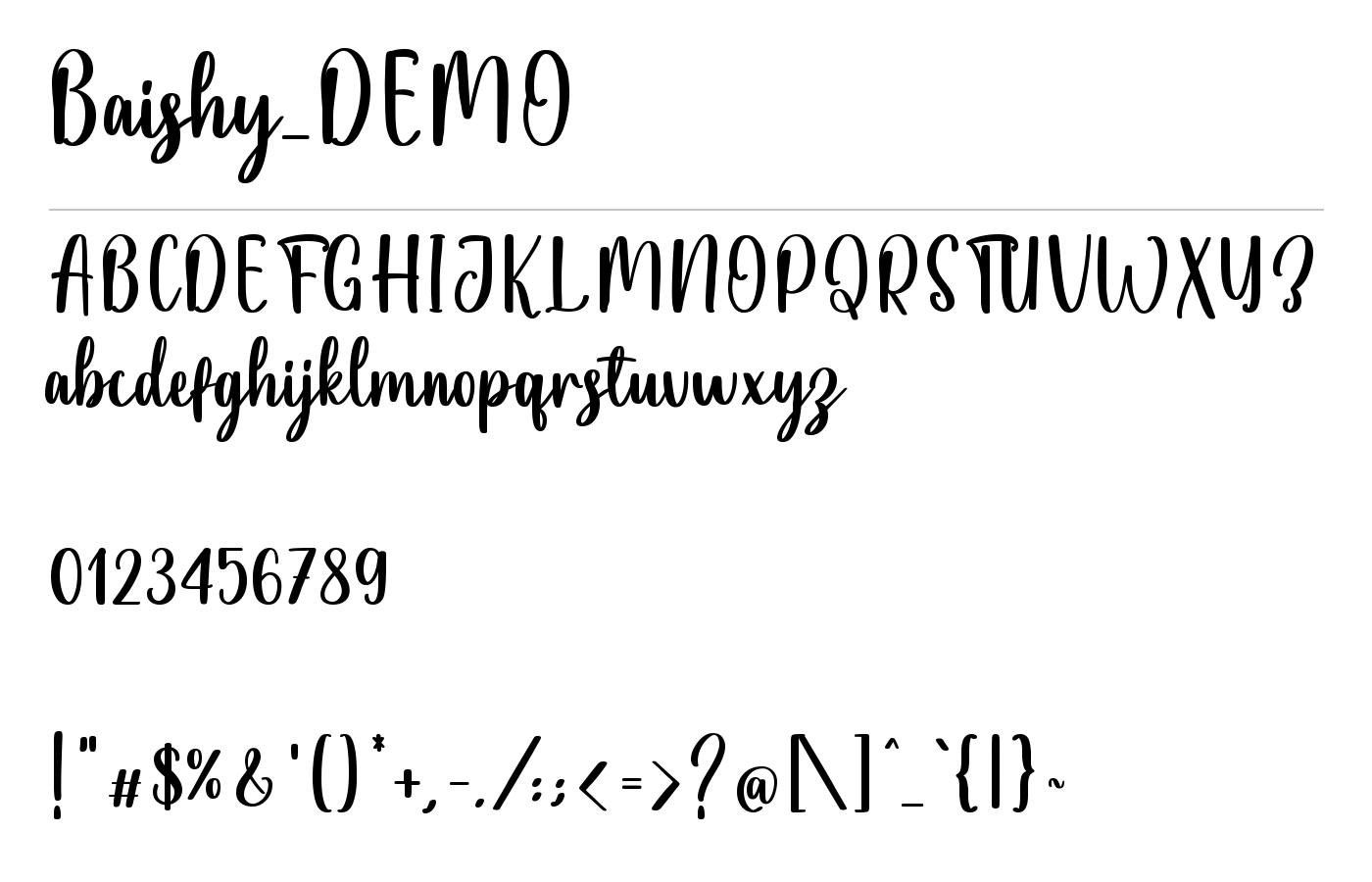
Baishy_DEMO is a playful and informal script font with a lively character, featuring smooth, rounded strokes and a casual handwritten style. Its mix of tall, narrow uppercase letters and flowing lowercase forms makes it perfect for creative branding, invitations, and headlines that want to convey warmth and personality. This font works well in projects that seek a friendly, approachable vibe with a touch of elegance.
Baishy_DEMO Font
About Baishy_DEMO Font